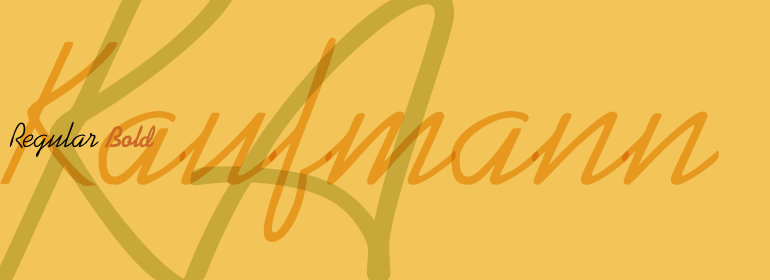
Kaufmann®
Kaufmann font was designed in 1936 for the American Type Founders by Max R. Kaufmann, a letterer, typographer, and one-time art director for McCalls magazine. Kaufmann is a connecting script typeface with a smooth, slightly whimsical look. Its monoweight is unusual in a script type but allows for a nice texture on the page when it is combined with sans serif text type. The bold Kaufmann is fine display type.